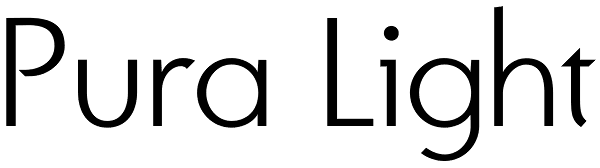
Pura
Pura is font design with as little thought about tradition as possible, as the name implies it will become my purest design yet. I wanted to design a typeface, that would be a "linear Antiqua" without being just plain linear. So I gave the "linear...